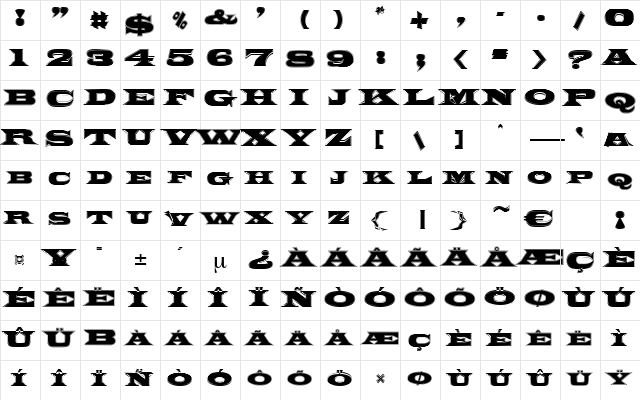
ZyklopInline Regular
Design Context for ZyklopInline Typeface
ZyklopInline brings ornamental detail and strong personality to headlines and identities, where visual impact matters more than quiet functionality.
Font Pairing: Pair with a clean neutral sans-serif for body copy to let ZyklopInline's character lead without overwhelming the composition.
Pro Tip: Use ZyklopInline exclusively at display sizes — it was designed to be seen, not read at length. Let a neutral companion handle body copy.